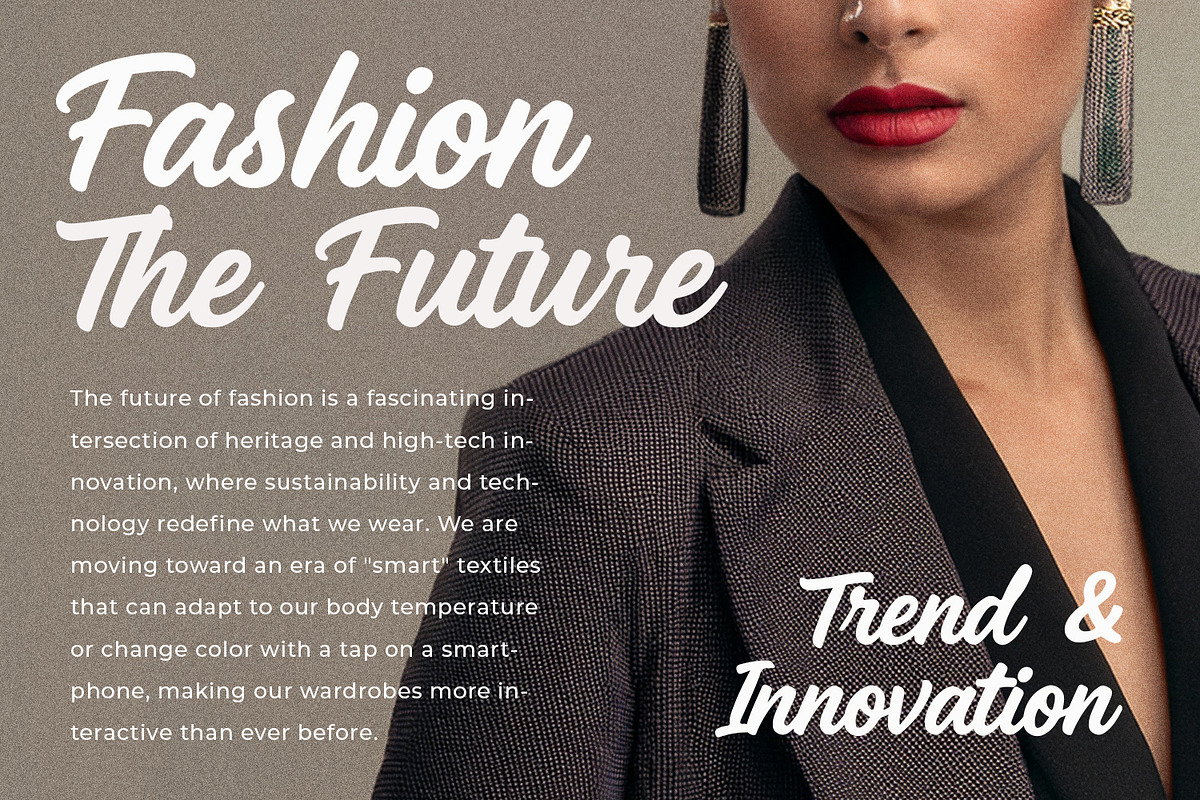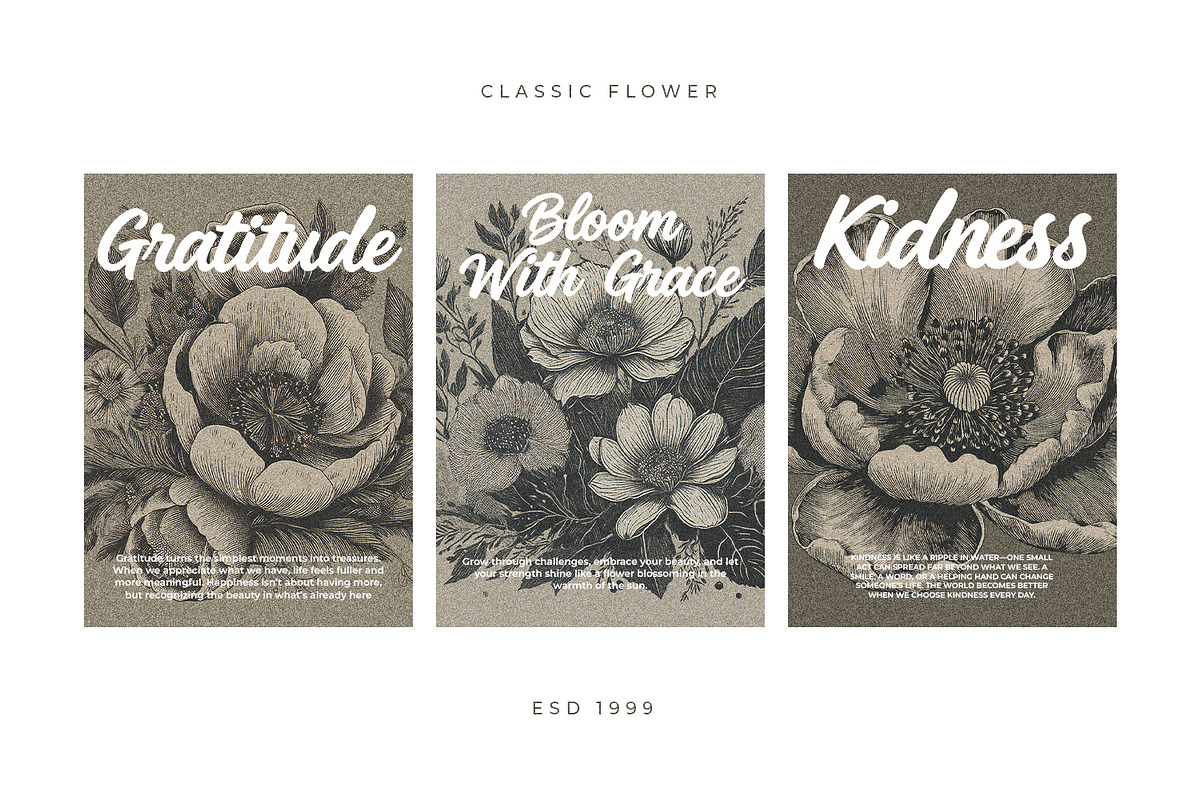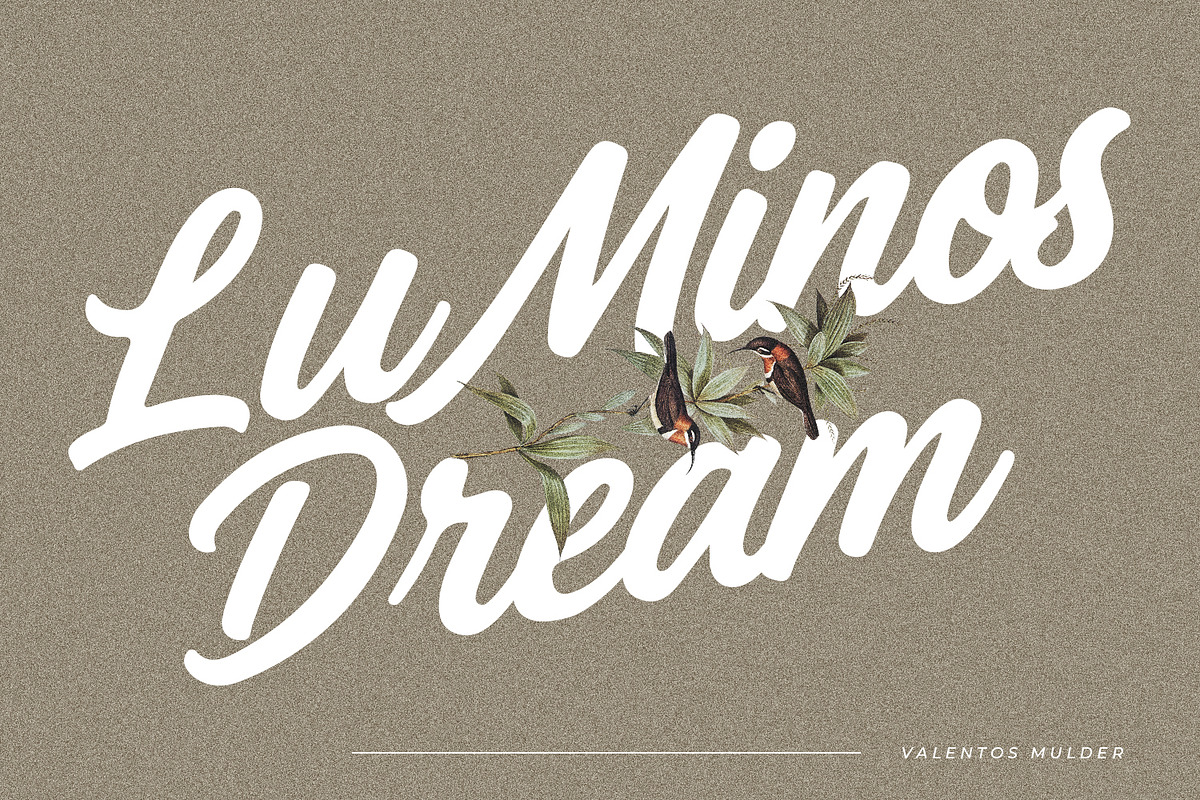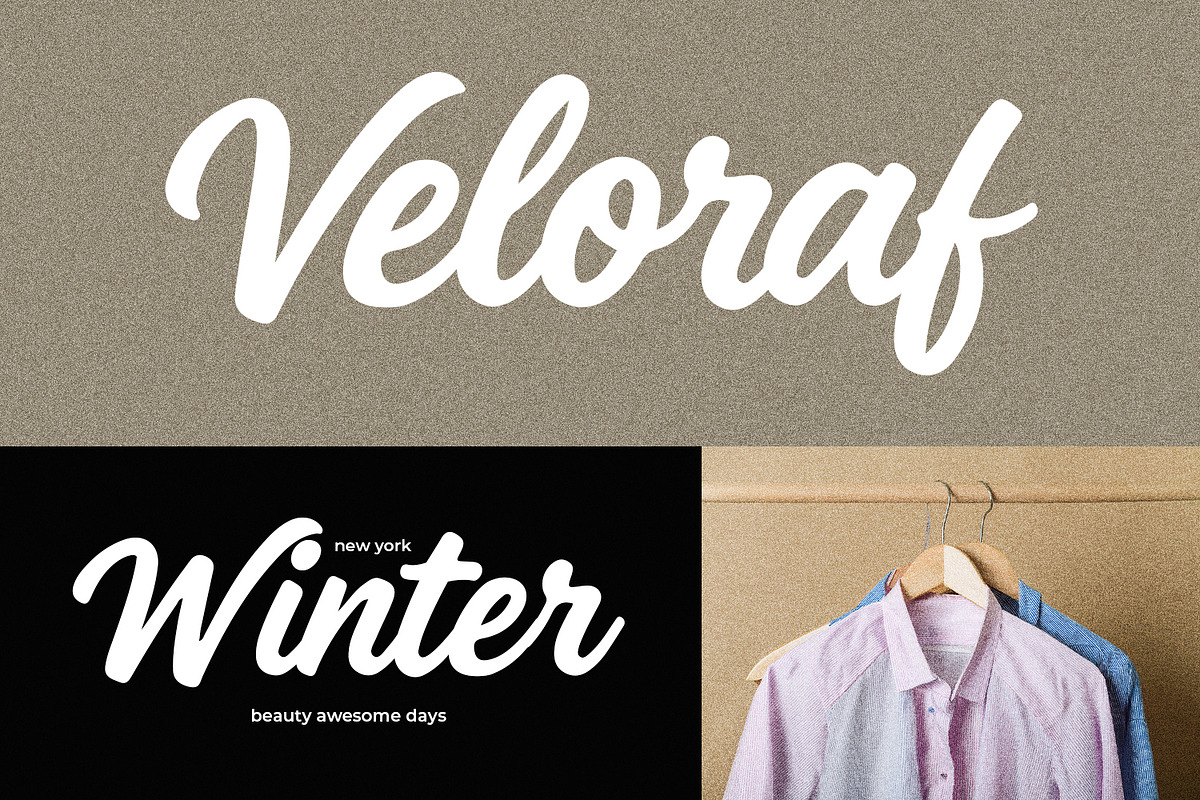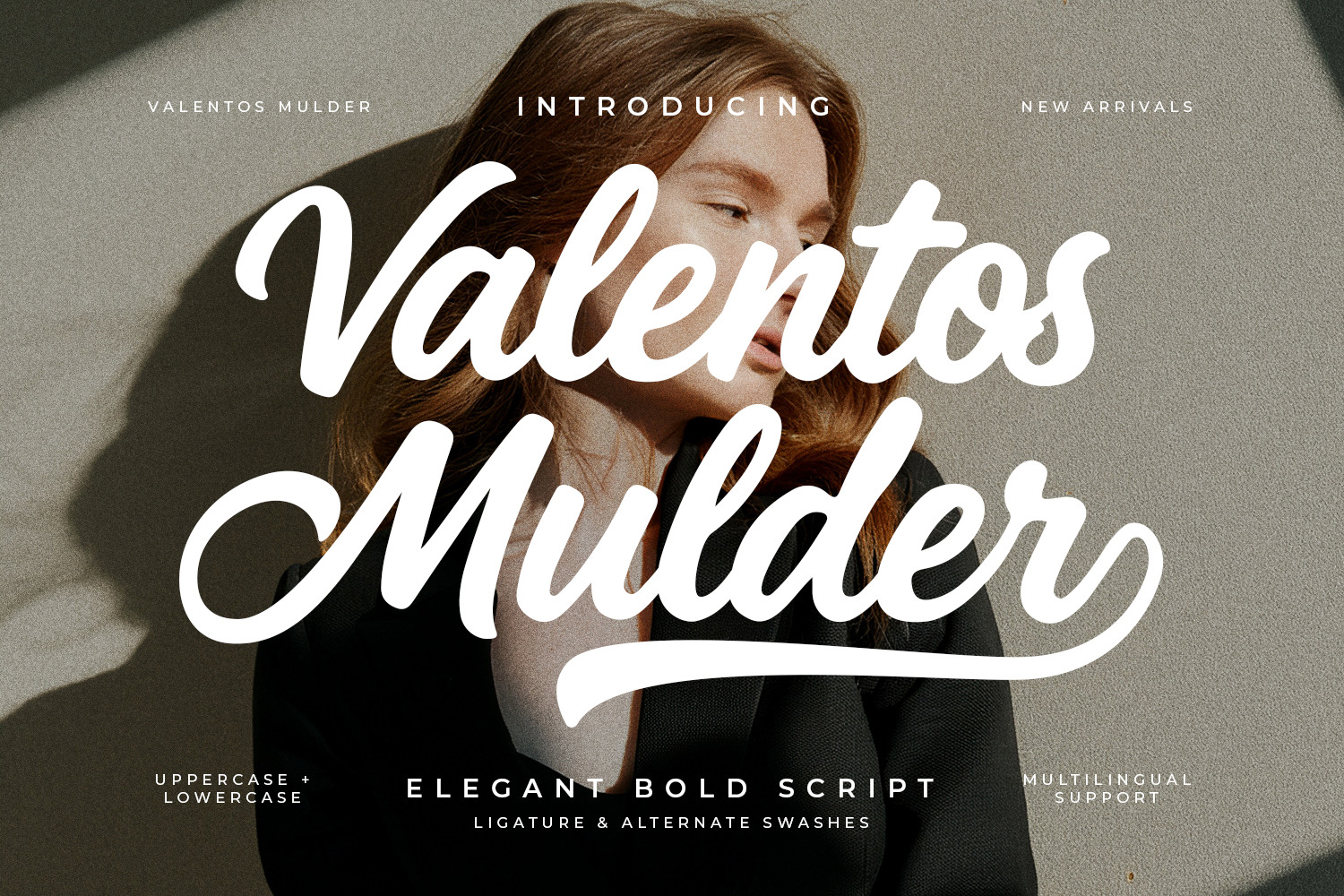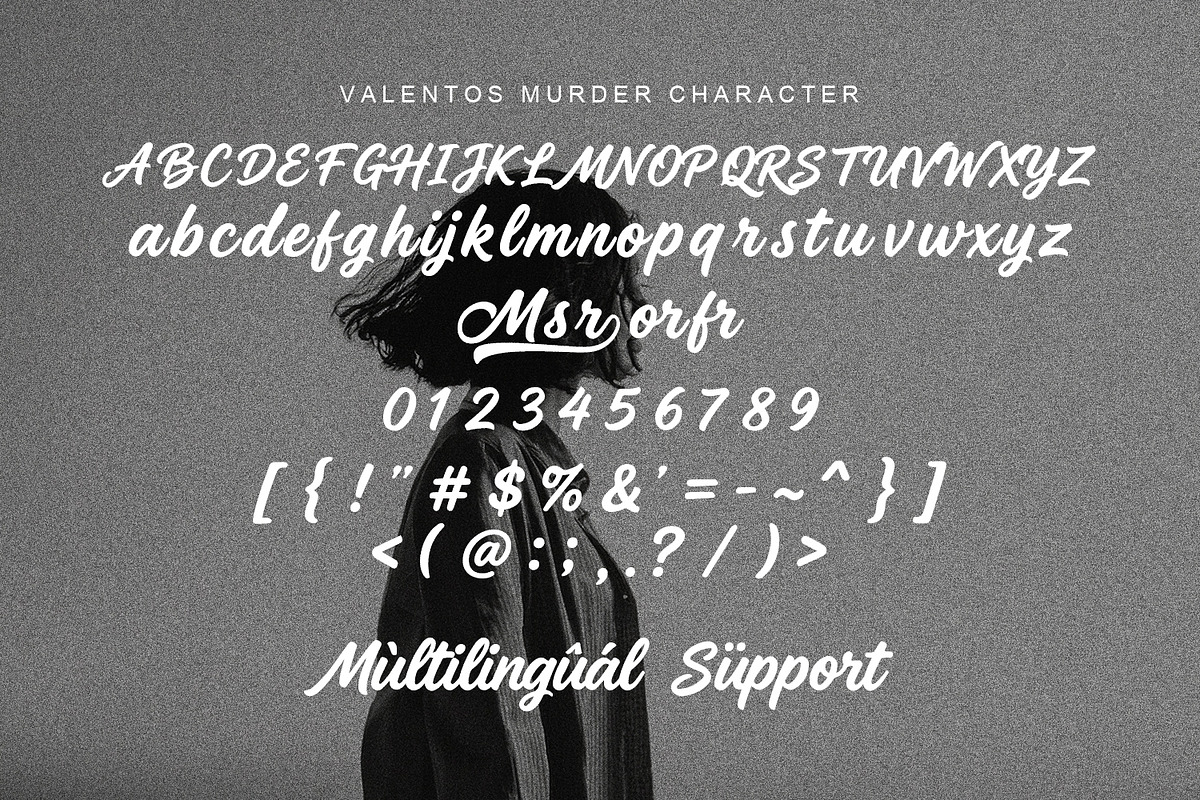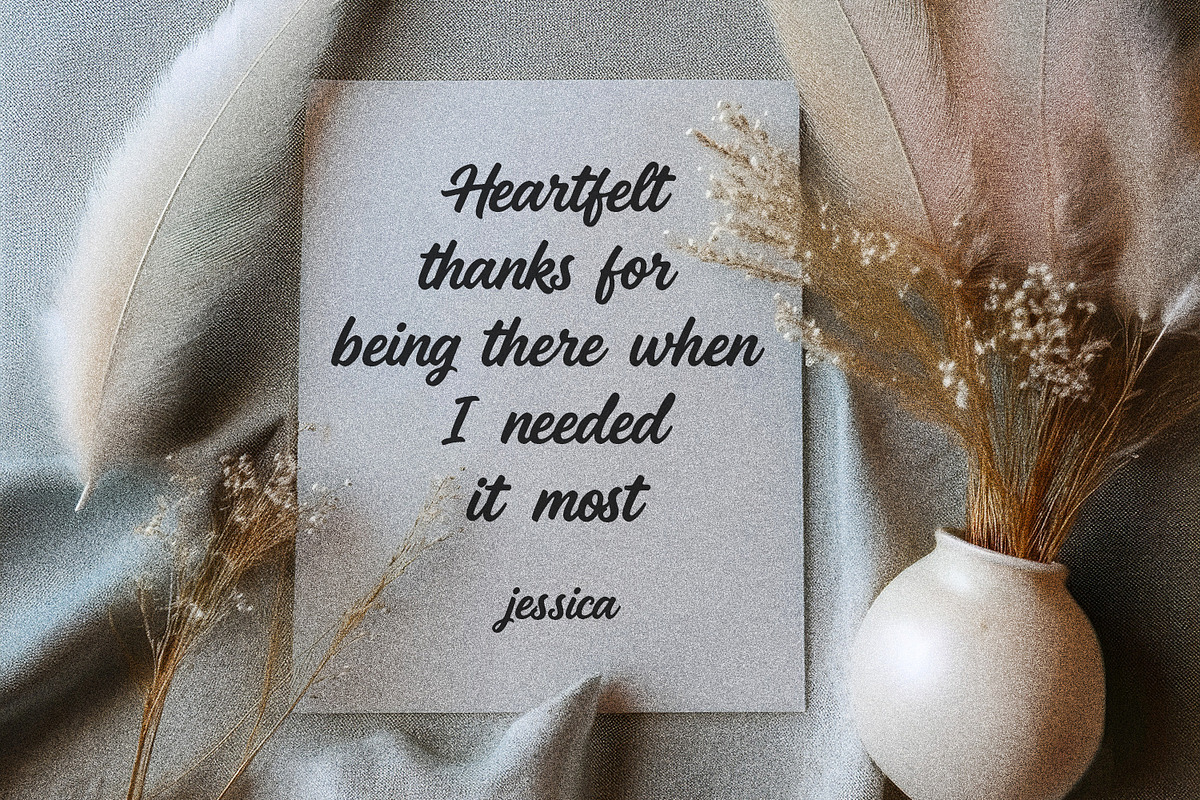
Valentos Mulder Elegant Script Font
Valentos Mulder is a sophisticated bold script typeface that strikes a perfect balance between expressive hand-drawn fluidly and refined modern aesthetics. Characterized by its thick, confident strokes and graceful ligatures, this font exudes a sense of high-end fashion and timeless elegance. Its smooth curves and distinct alternate swashes make it an ideal choice for luxury branding, editorial layouts, wedding invitations, and upscale advertising. Whether used for a striking header or a stylish quote, Valentos Mulder brings a professional and artisanal touch to any creative project.
- Full character set (Uppercase & Lowercase)
- Numbers, Punctuation, and Symbols
- Ligature and alternate for a natural handwriting flow